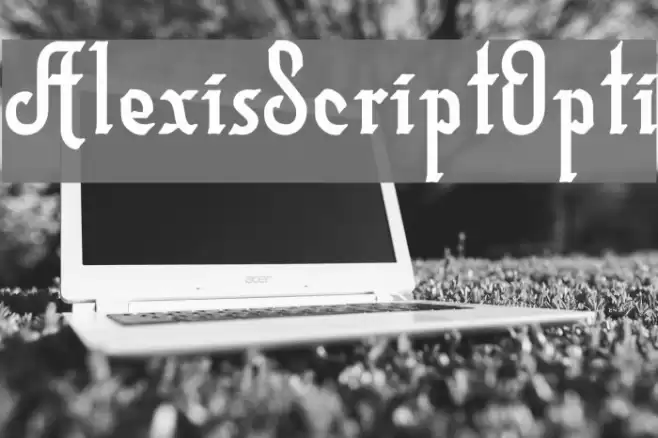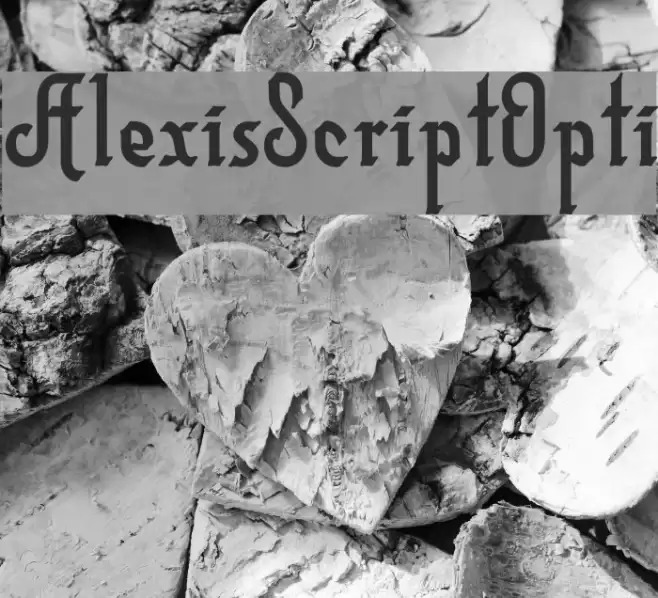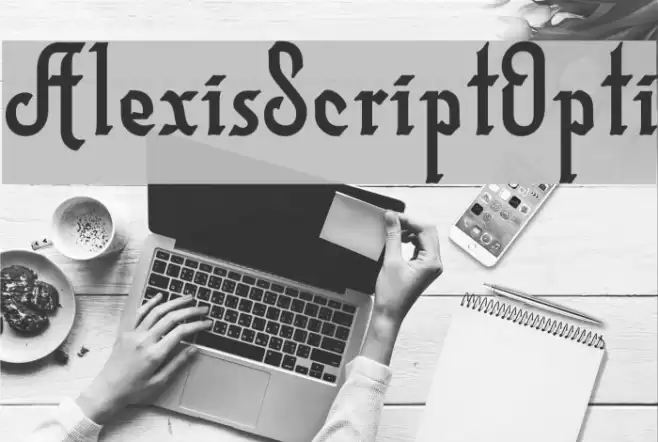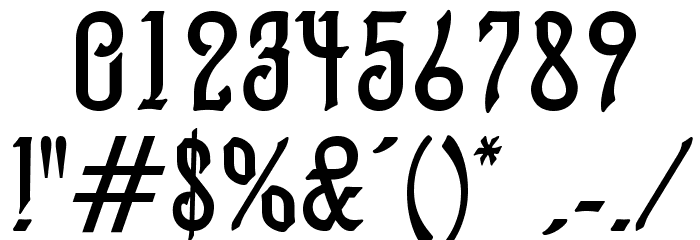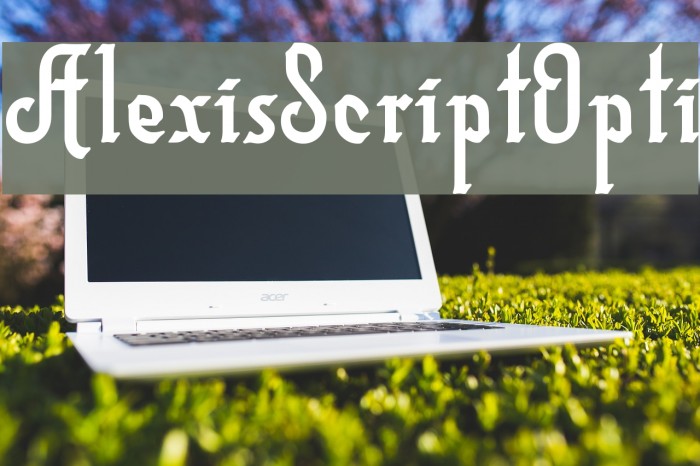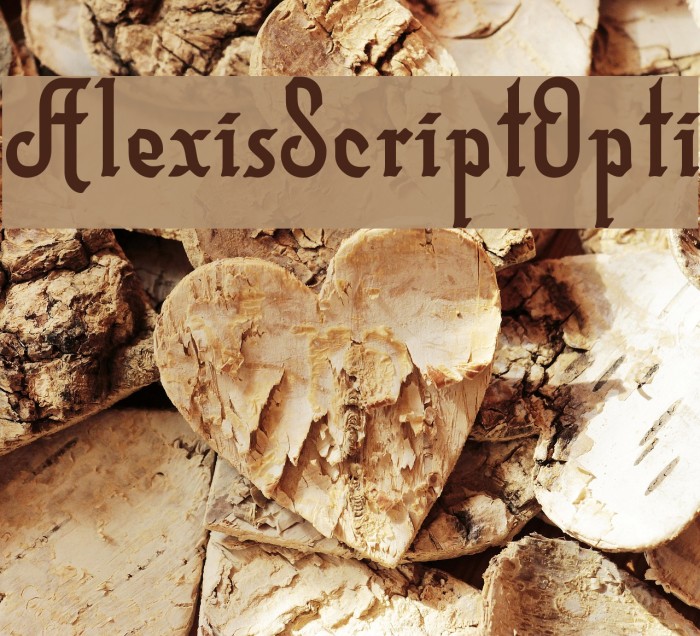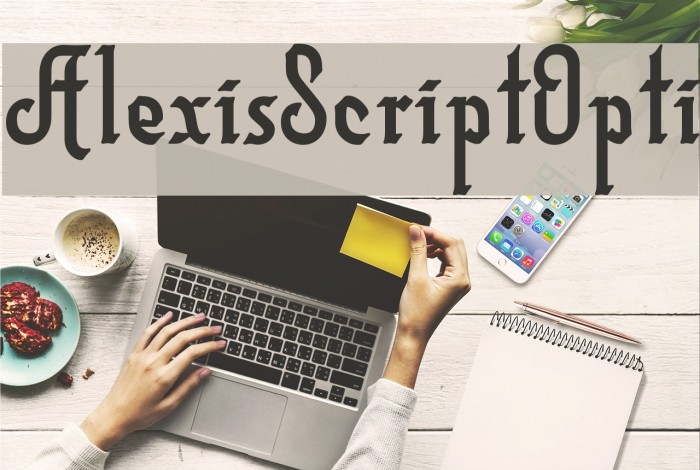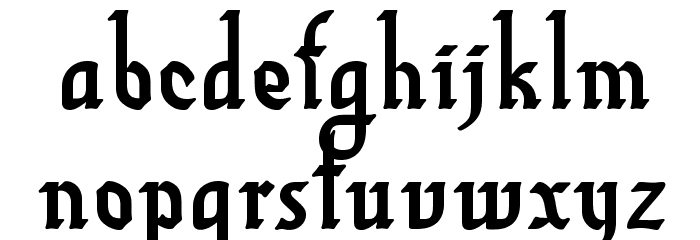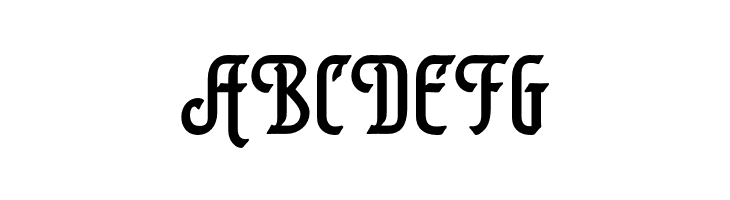
AlexisScriptOpti Font
AlexisScriptOpti Description
This font features a distinctive, ornate style reminiscent of traditional calligraphy with a modern twist. The characters are elegantly crafted with sharp, angular lines and subtle curves, giving it a sophisticated and artistic appearance. The uppercase letters are particularly striking, with elaborate flourishes that add a touch of grandeur. The lowercase letters maintain a consistent style, ensuring readability while preserving the decorative essence. Numbers and special characters are designed to complement the overall aesthetic, making this font versatile for various design needs. Its unique style is perfect for projects that require a touch of elegance and creativity.
An ornate, calligraphy-inspired font with sharp lines and elegant curves from Uncategorized fonts.
- Proposed Projects: Ideal for wedding invitations, luxury branding, artistic posters, and decorative headings.
- Use Case: Headlines, Logos, Invitations